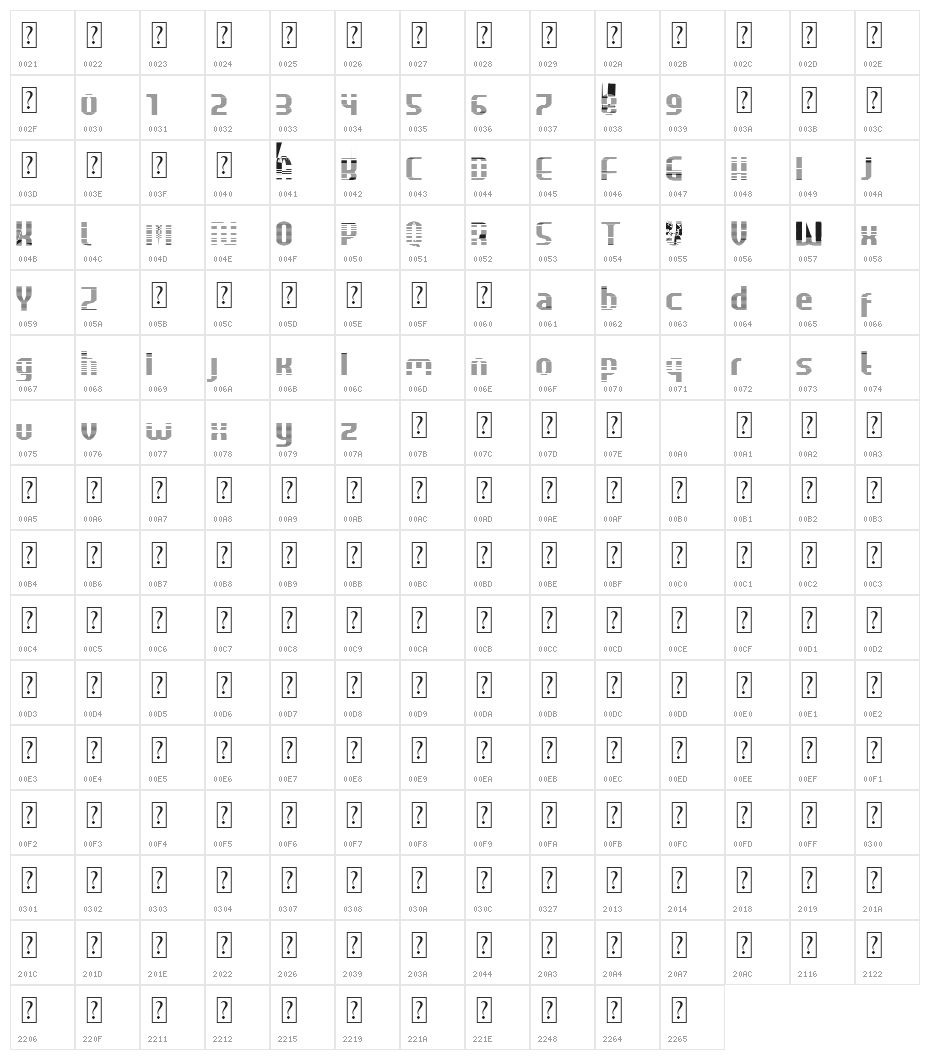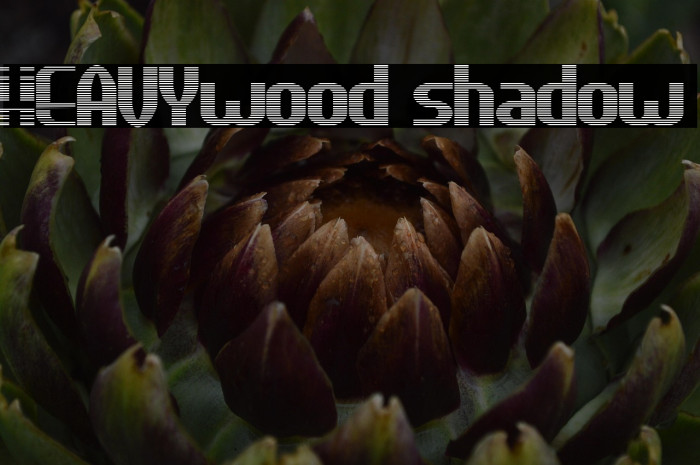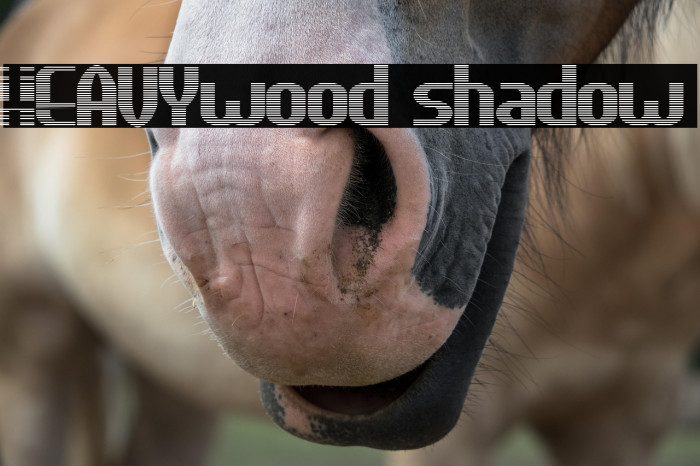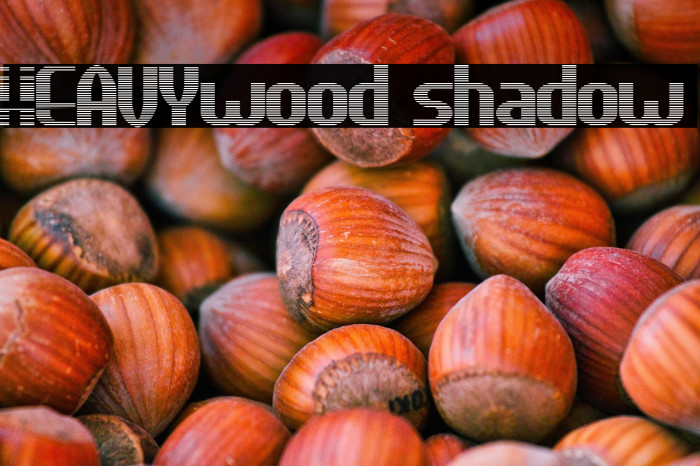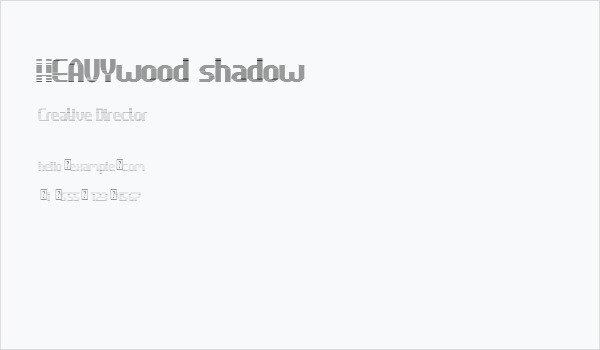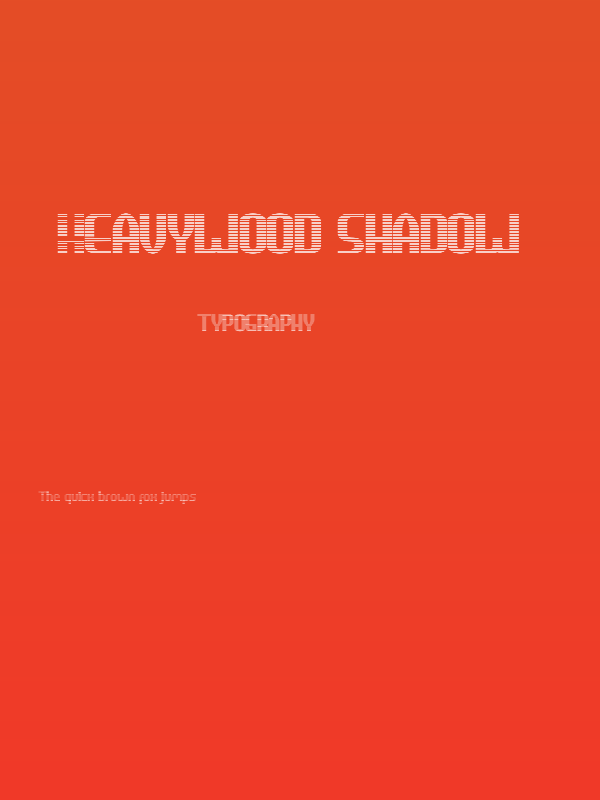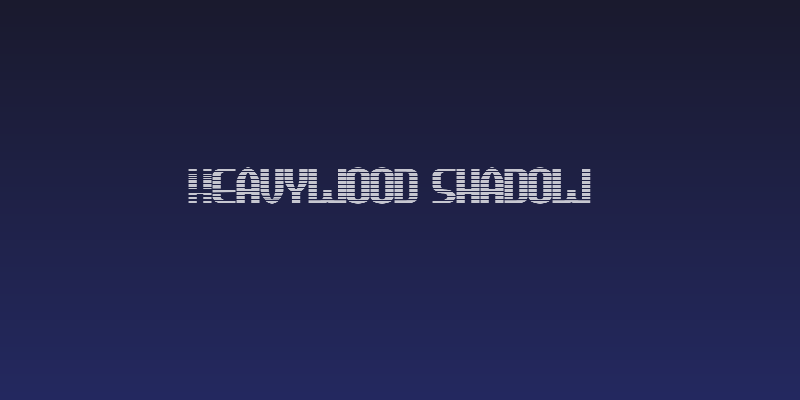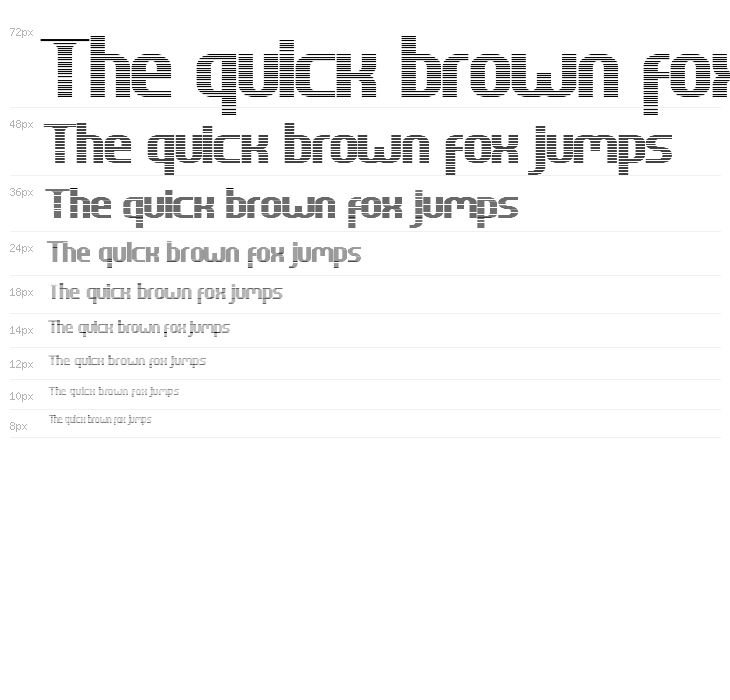
HEAVYwood shadow Font
HEAVYwood shadow Description
This font features a unique design with horizontal lines creating a shadow effect, giving it a three-dimensional appearance. The characters are bold and structured, with a modern and futuristic style. The uppercase and lowercase letters maintain a consistent width, while the numbers and special characters follow the same design pattern. The font's distinct line work adds a textured look, making it suitable for eye-catching designs.
Proposed ProjectsIdeal for posters, logos, and headlines where a striking, modern look is desired.